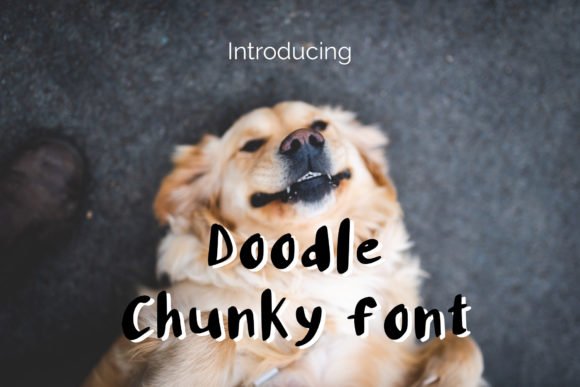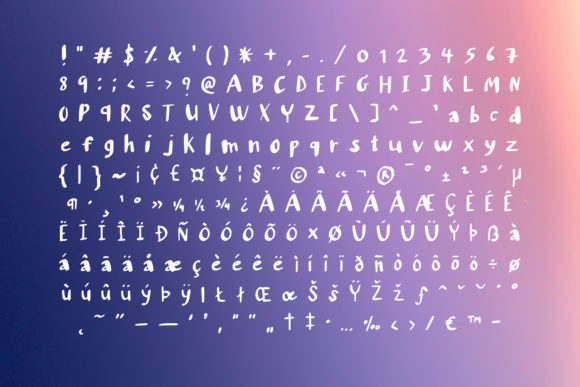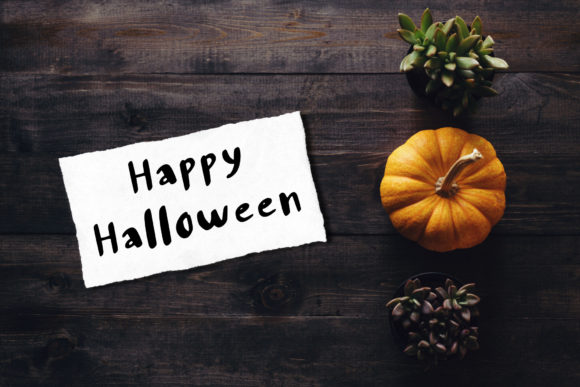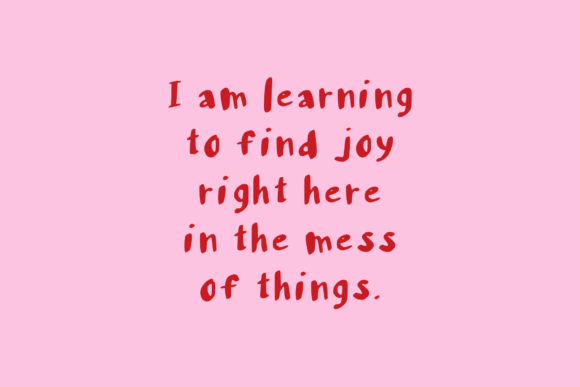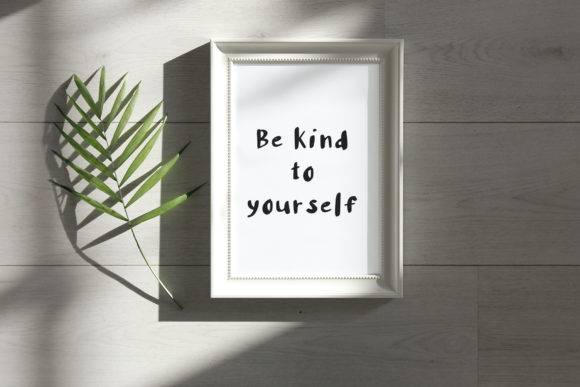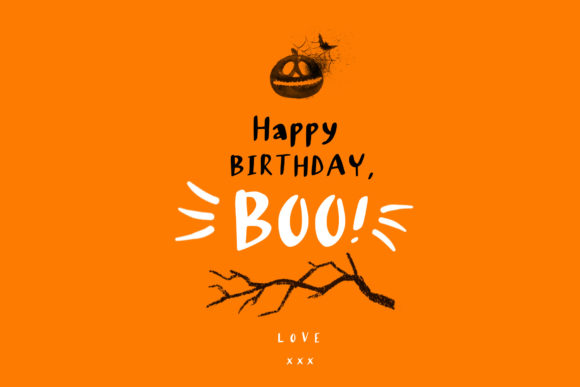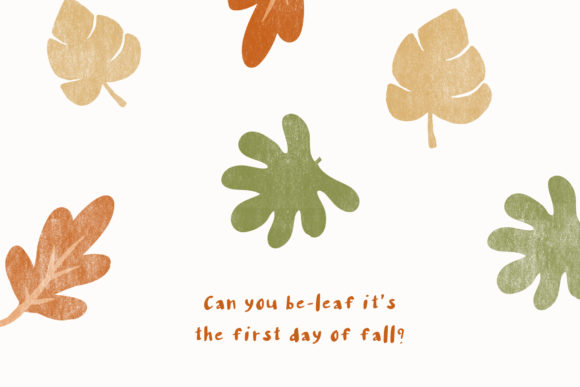
Unlock the Power of Handwritten Charm with Doodle Chunky Font
You know that moment when you’re brainstorming ideas for a new project, and suddenly, a spark of creativity hits you? Maybe it’s a quirky illustration, an inspiring quote, or a unique font that sets your design apart. For many designers, this spark often comes from the world of handwritten fonts. One such font that has captured the hearts of creatives everywhere is the Doodle Chunky Font.
This sweet and friendly handwritten font is the perfect addition to any design project. Its natural and unique style makes it incredibly versatile, allowing designers to express their individuality and creativity. Whether you’re working on a children’s book, a social media campaign, or a wedding invitation, the Doodle Chunky Font is sure to add a touch of warmth and personality to your design.
- Unique Characteristics: The Doodle Chunky Font features a bold, playful, and hand-drawn style with chunky lines and rounded edges, making it perfect for creating eye-catching headlines and titles.
Doodle Chunky Font Review
Overall, I think Doodle Chunky Font is a fun and playful addition to any design project. ✨ The chunky, hand-drawn feel of the font is perfect for creating a whimsical or casual atmosphere.
- Unique and eye-catching design
- Perfect for headings or titles
- Works well with bold and bright colors
- Can be used for a variety of projects, from children’s books to social media graphics
However, there are some limitations to consider. ⚠️ The font can be a bit difficult to read at smaller sizes, and the chunky design may not be suitable for formal or professional projects. Additionally, the font may not include all the characters you need, such as accented letters or punctuation marks.
I think Doodle Chunky Font is a great option for designers who want to add some personality to their projects. While it may not be suitable for every project, it’s a fun and versatile font that can help you stand out. With a little creativity and planning, you can use Doodle Chunky Font to create some amazing designs.
Tips: Experiment with different font sizes and colors to create a unique look. Use the Doodle Chunky Font for headings or titles to add a playful touch.
Tips: Use the Doodle Chunky Font for creative projects, such as invitations or posters. Experiment with layer blending modes and opacity to add depth to your design.
Tips: Use the Doodle Chunky Font for headings or titles to add a playful touch. Experiment with different font sizes and colors to create a unique look.
The Doodle Chunky Font is ideal for creative projects, such as:
- Invitations and party decorations
- Posters and flyers
- Watercolor-style illustrations or patterns to give a whimsical feel
- Photographs or artwork in a minimalist frame to create contrast
- Geometric shapes or patterns in a contrasting color to add visual interest
- Colorful illustrations or graphics to match the party theme
- Customizable elements, such as name or date fields,
To use Doodle Chunky Font, design your party invitation template using a graphic design software or a digital invitation maker. Write the invitation text in Doodle Chunky Font and add illustrations, patterns, or graphics to match the party theme. You can also include a photo of the birthday person or a relevant image.
Combining Doodle Chunky Font with other design elements, consider adding: